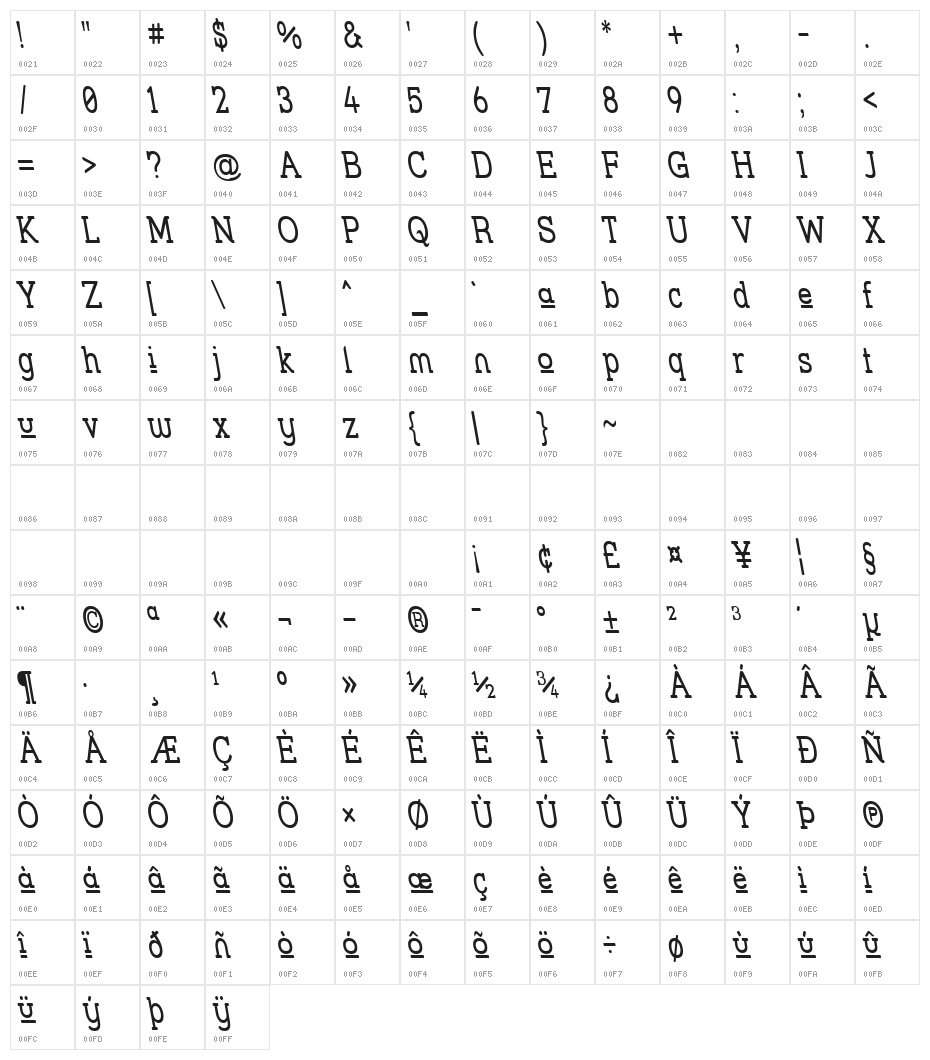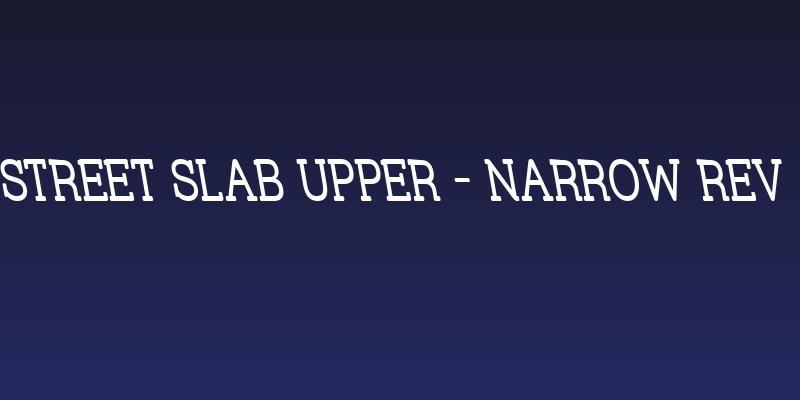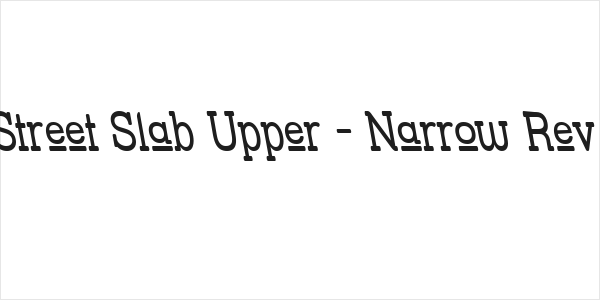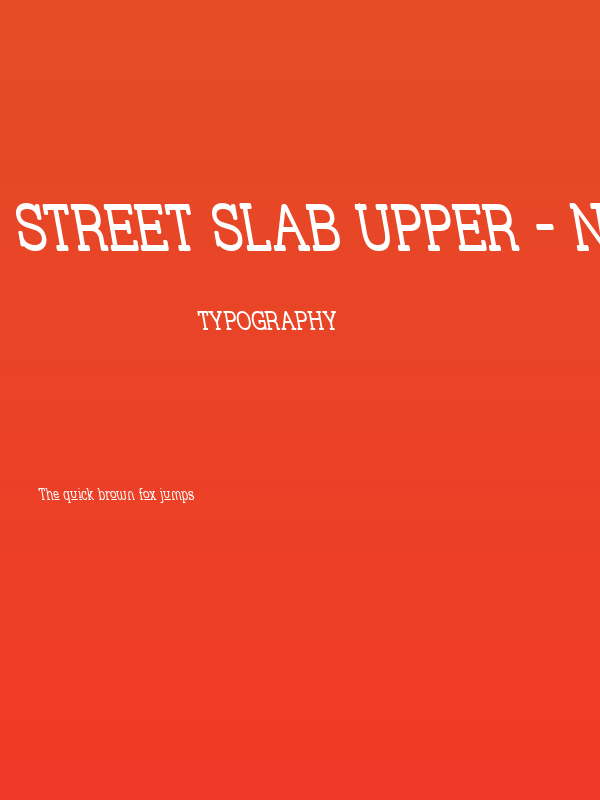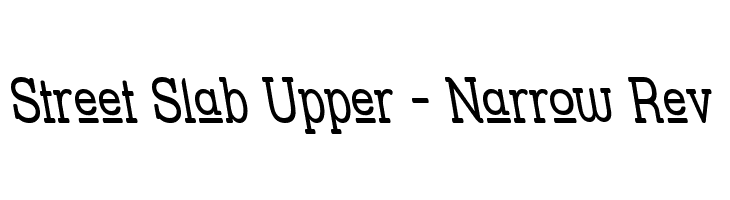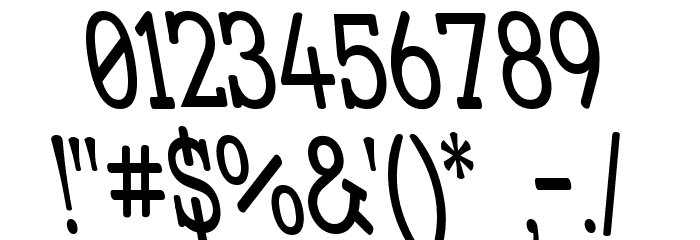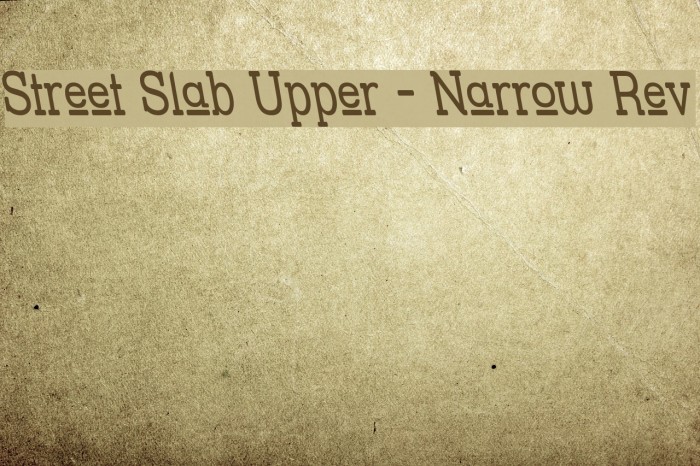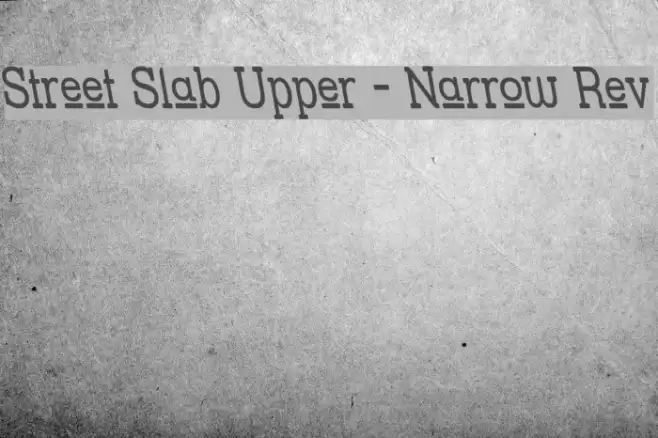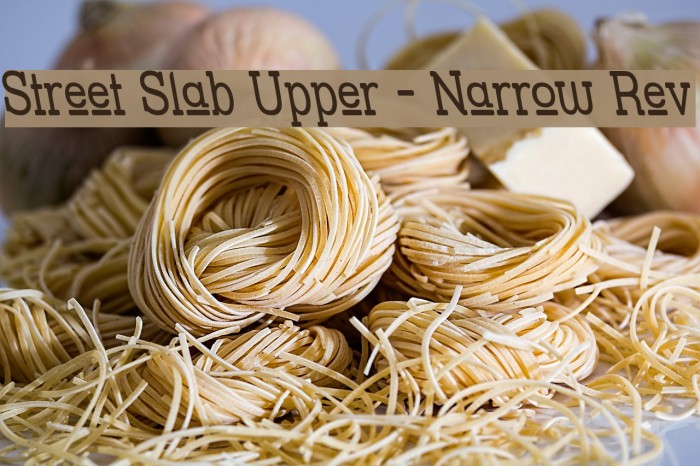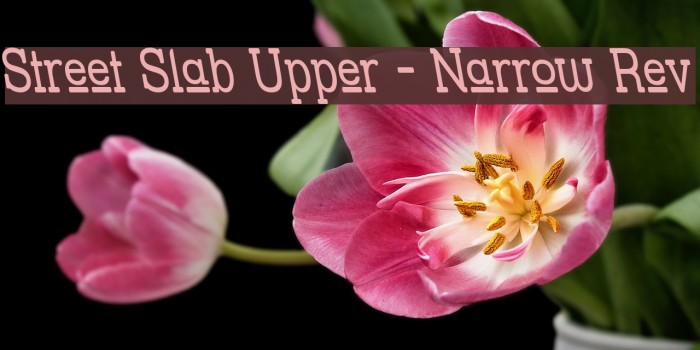
Street Slab Upper - Narrow Rev Font
Street Slab Upper - Narrow Rev Description
This font features a bold, slab serif style with a narrow width, giving it a strong and impactful presence. The uppercase letters are prominent and well-defined, while the lowercase letters maintain a consistent style with slightly rounded edges. The numerals are clear and legible, matching the overall aesthetic of the font. Special characters are included, providing versatility for various uses. The font's design is modern yet retains a classic touch, making it suitable for both contemporary and traditional projects.